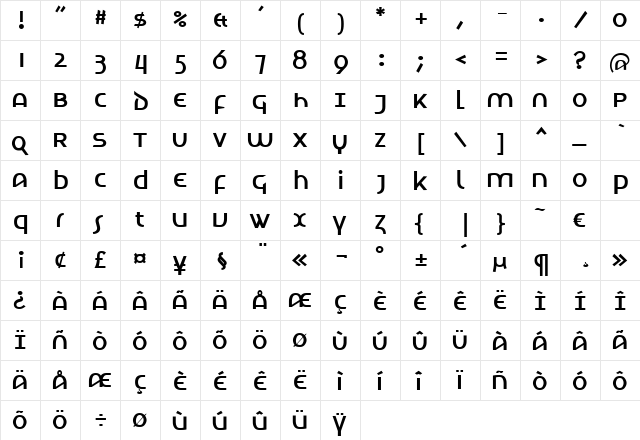
TechnoBold Regular Font Preview
TechnoBold Regular
TechnoBold Regular Font Details
Design Context for TechnoBold Typeface
TechnoBold channels digital-age aesthetics through its sharp, structured letterforms — ideal for brands that want to signal innovation. Its bold stroke weight gives it real presence on the page.